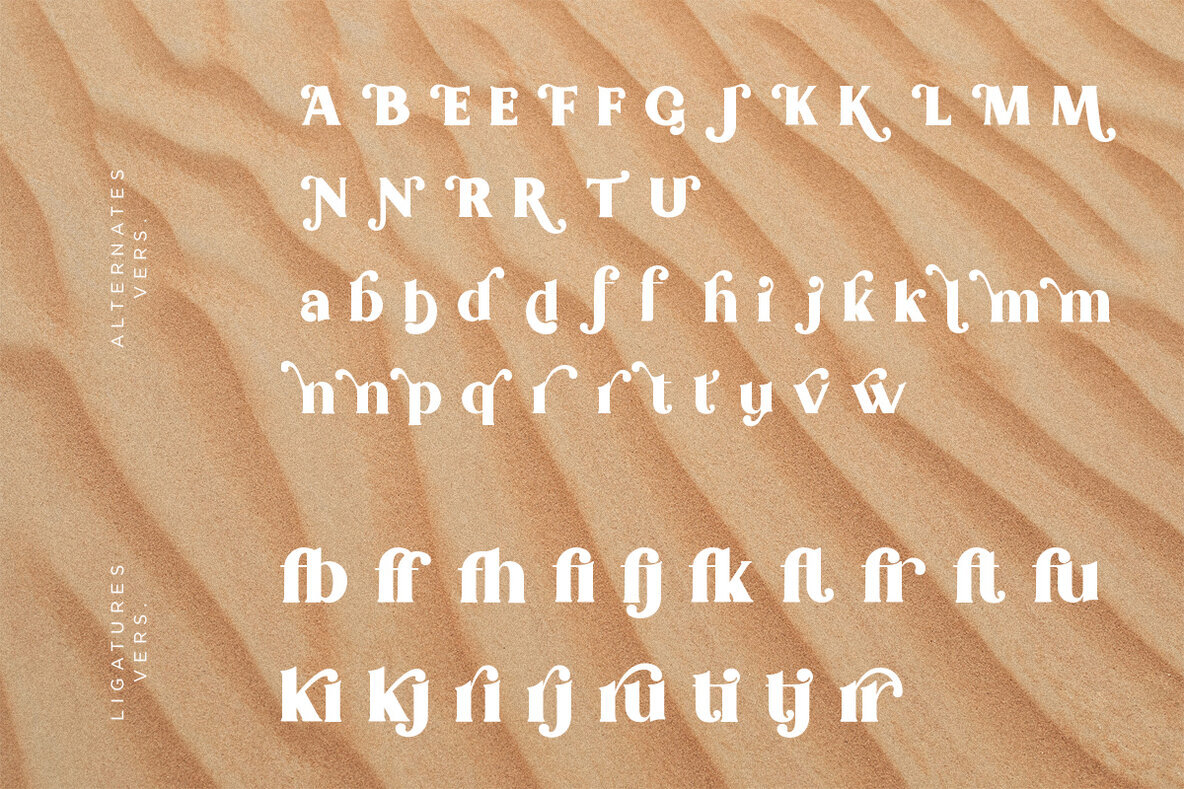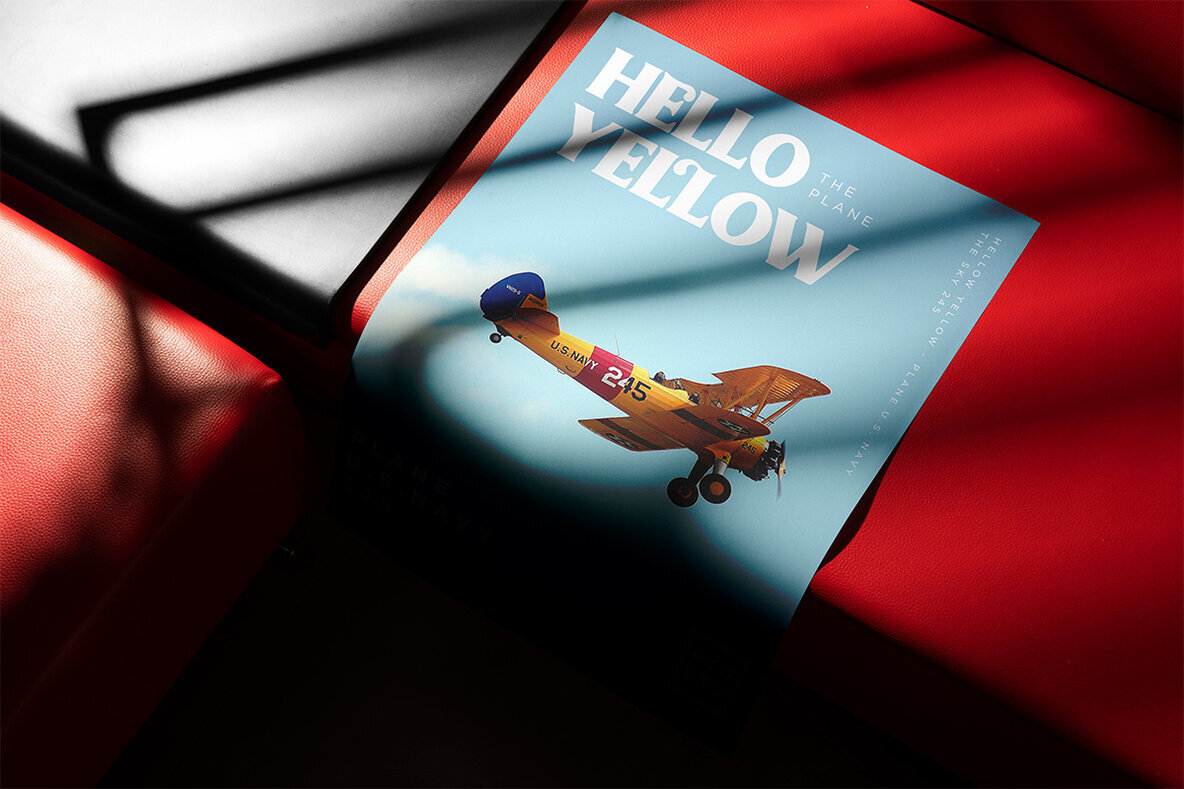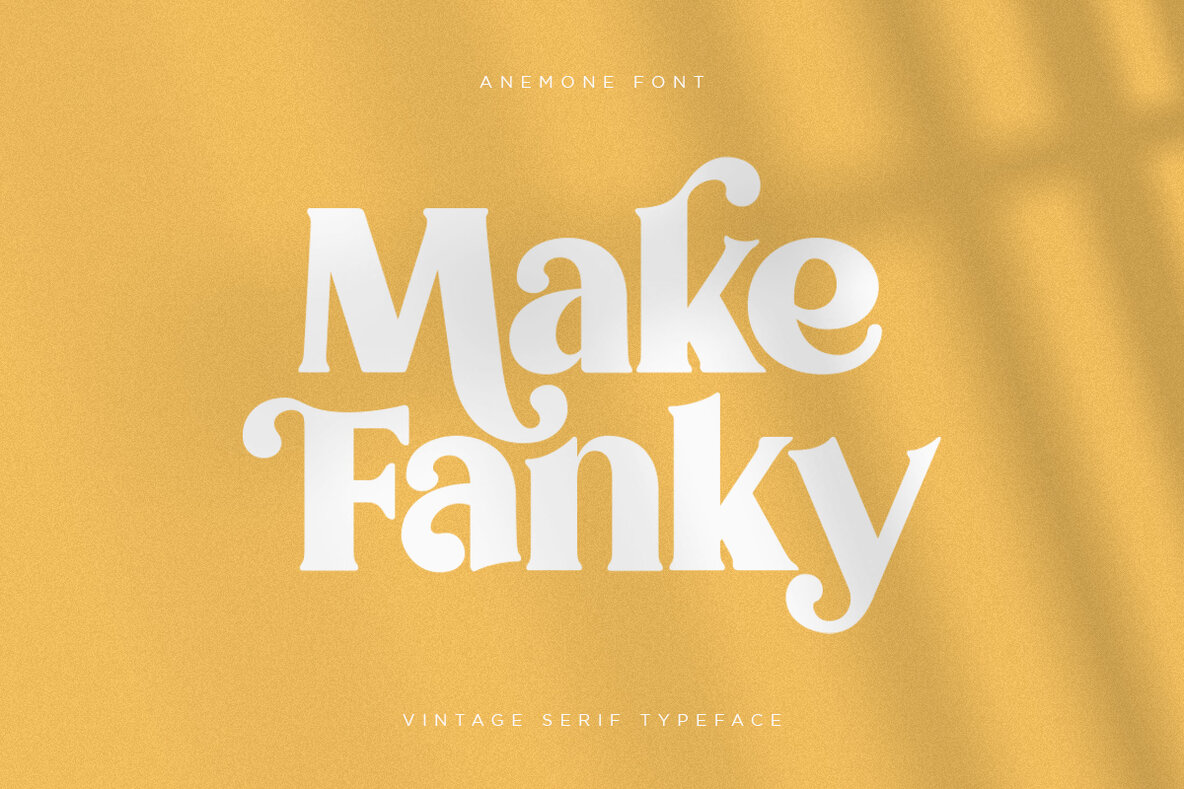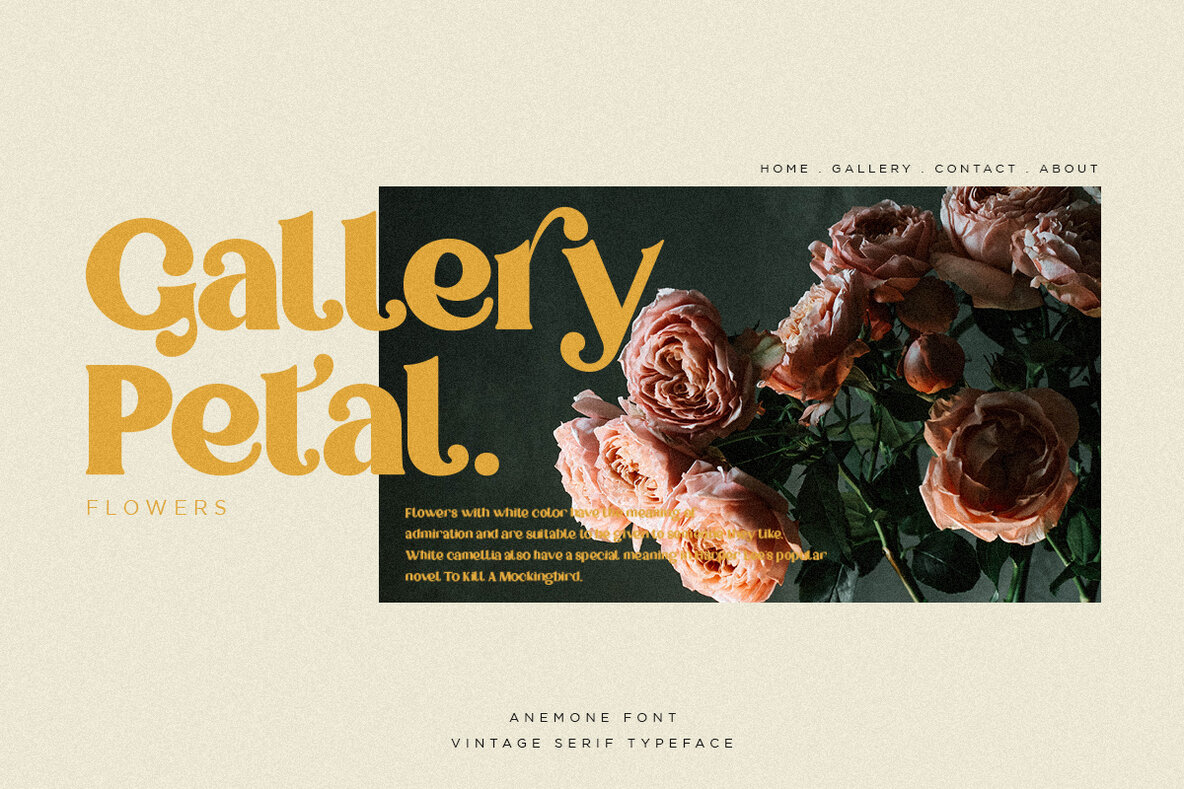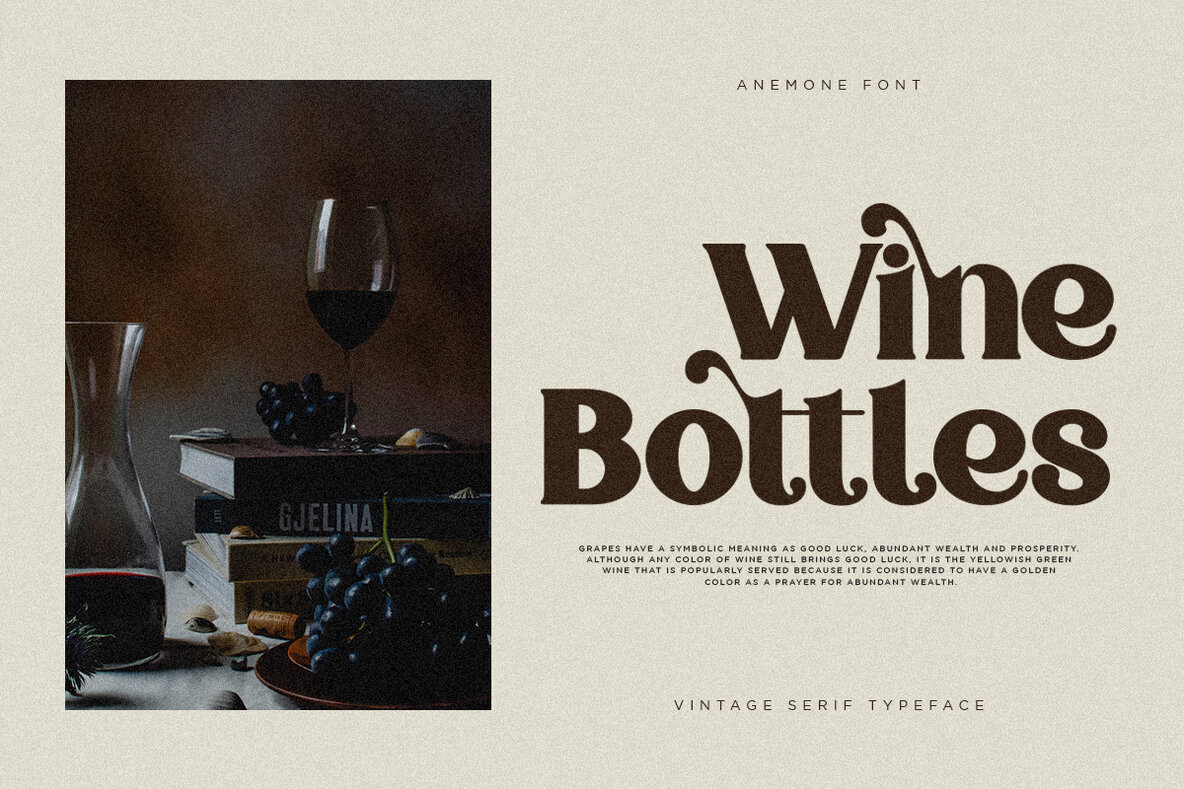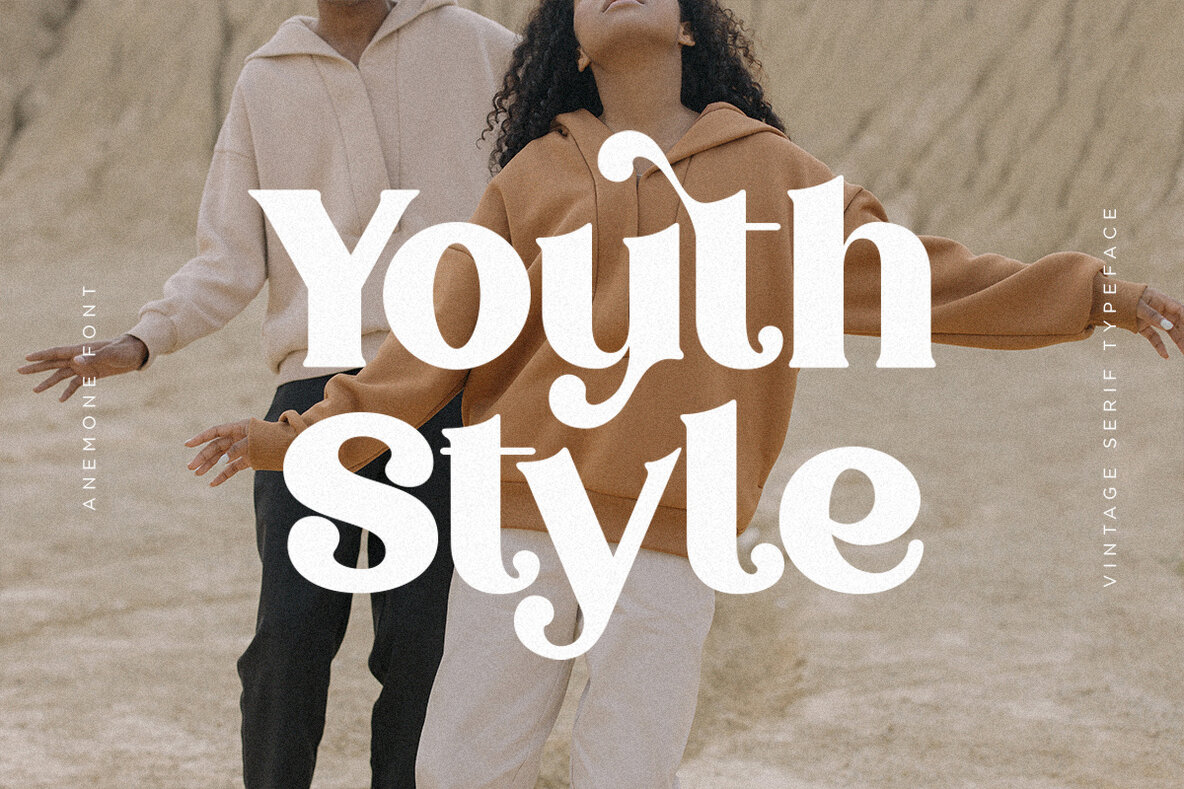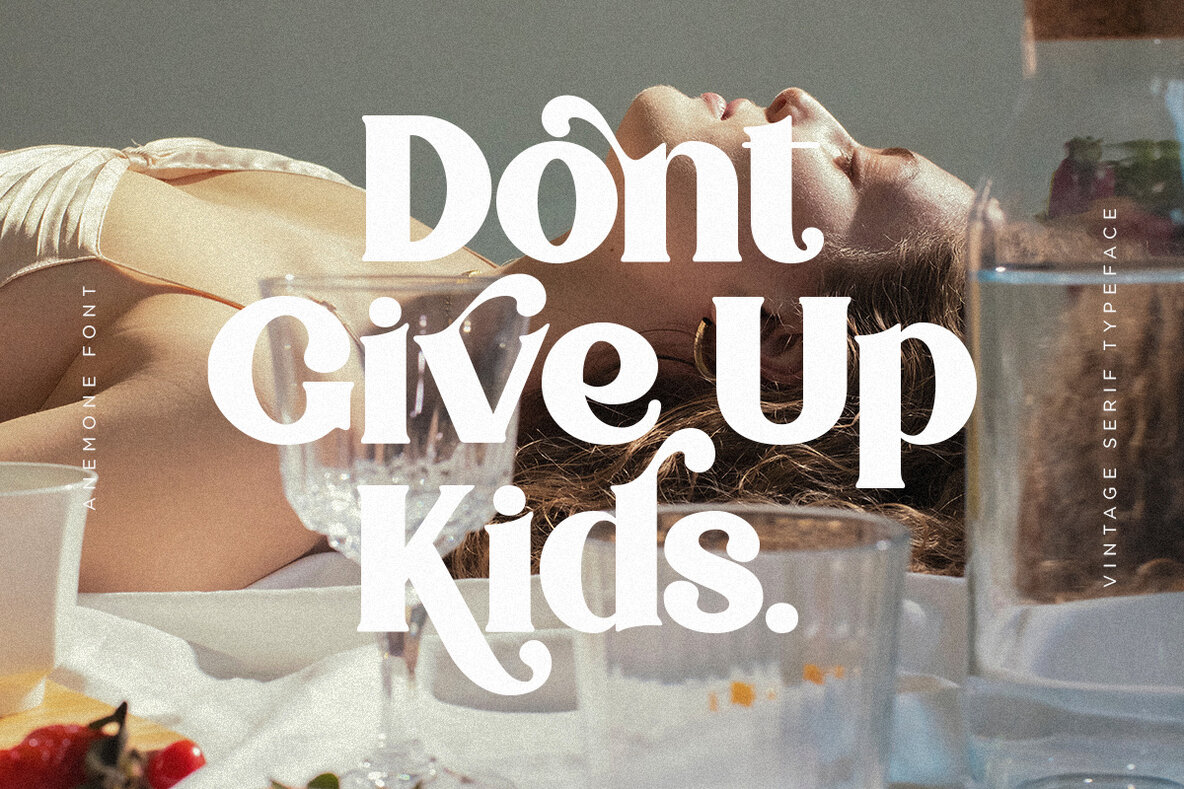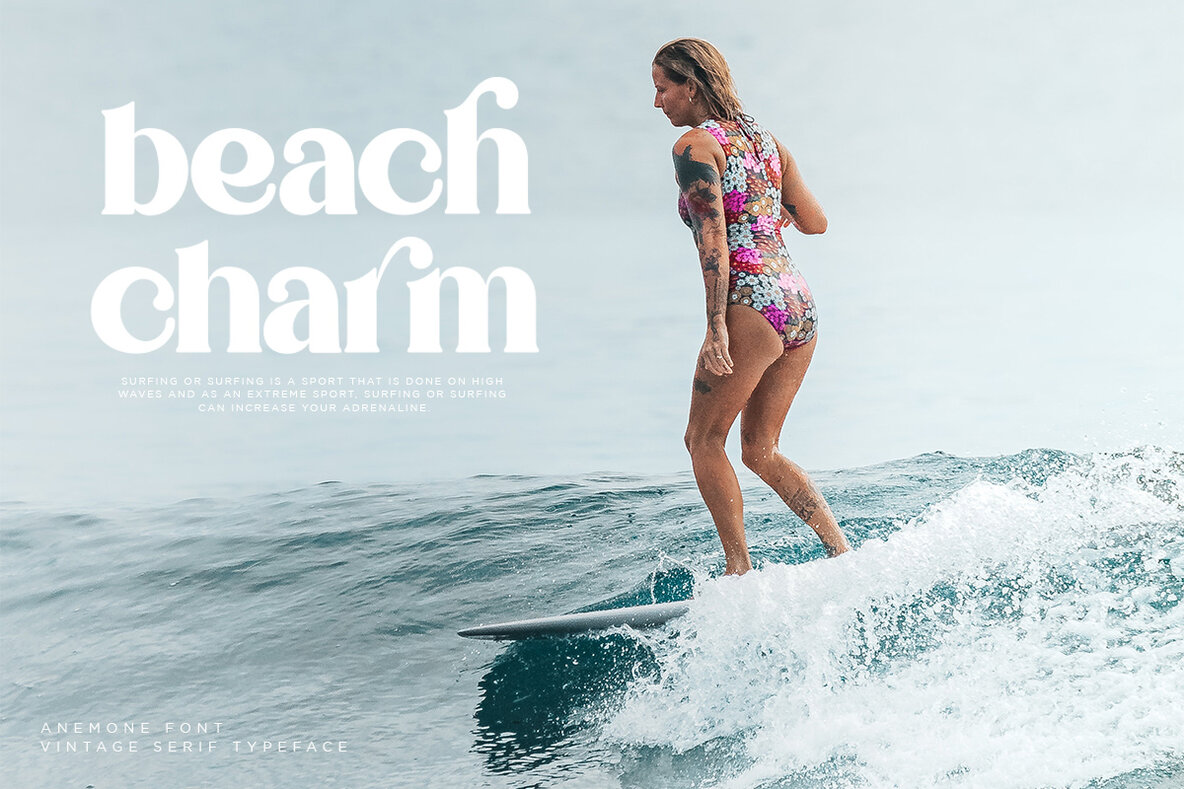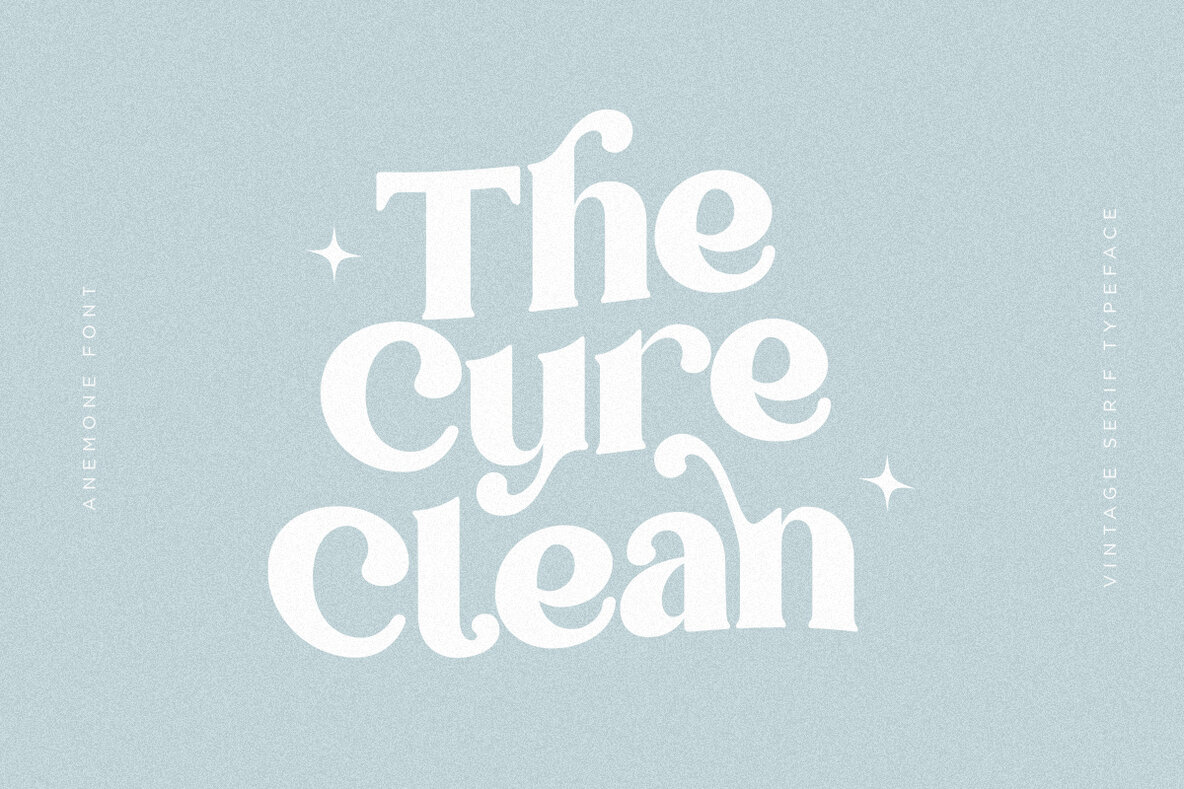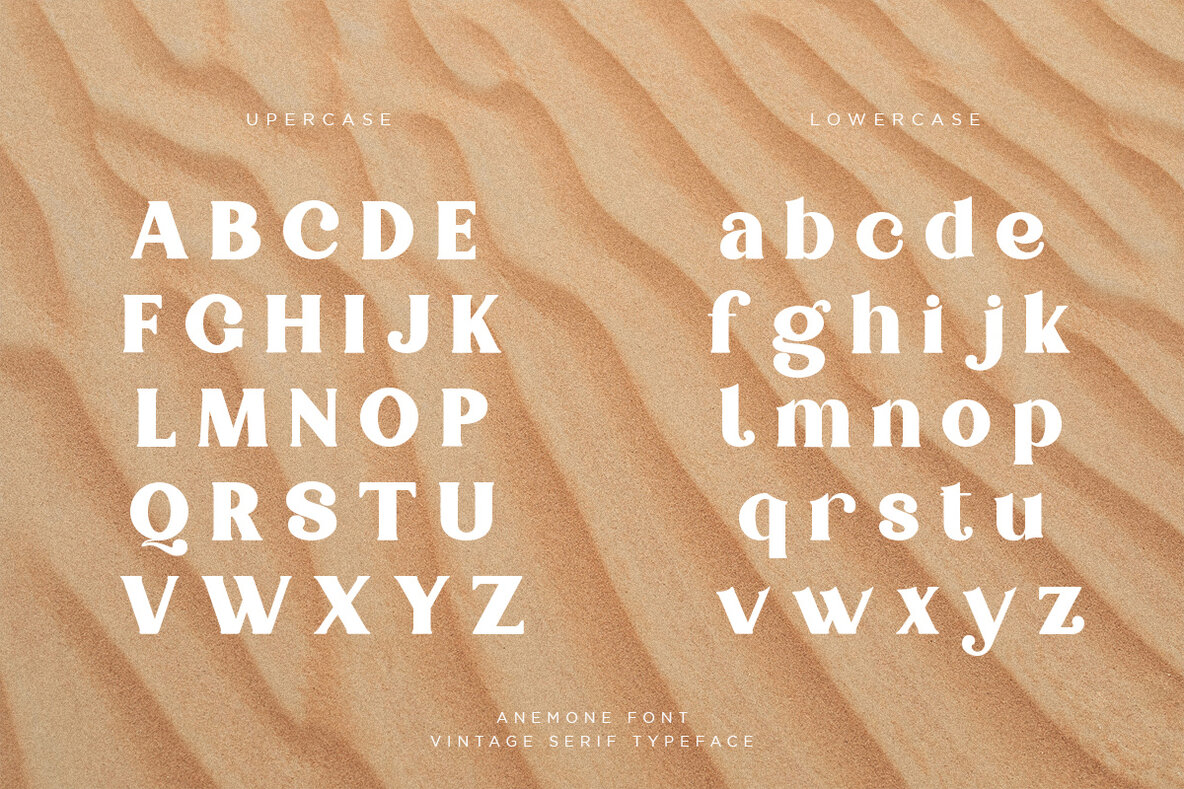
Anemone Font
Anemone Regular
Anemone, crafted by Pentagonistudio, brings a touch of vintage charm to your design projects. This serif typeface exudes stylishness while nodding to classic design heritage, making it an ideal choice for those looking to add a sophisticated flair to their work. Perfect for both traditional and modern settings, Anemone invites creativity and refinement. Installation and Usage Terms: Software Requirements:Anemone: Vintage Serif with Timeless Elegance